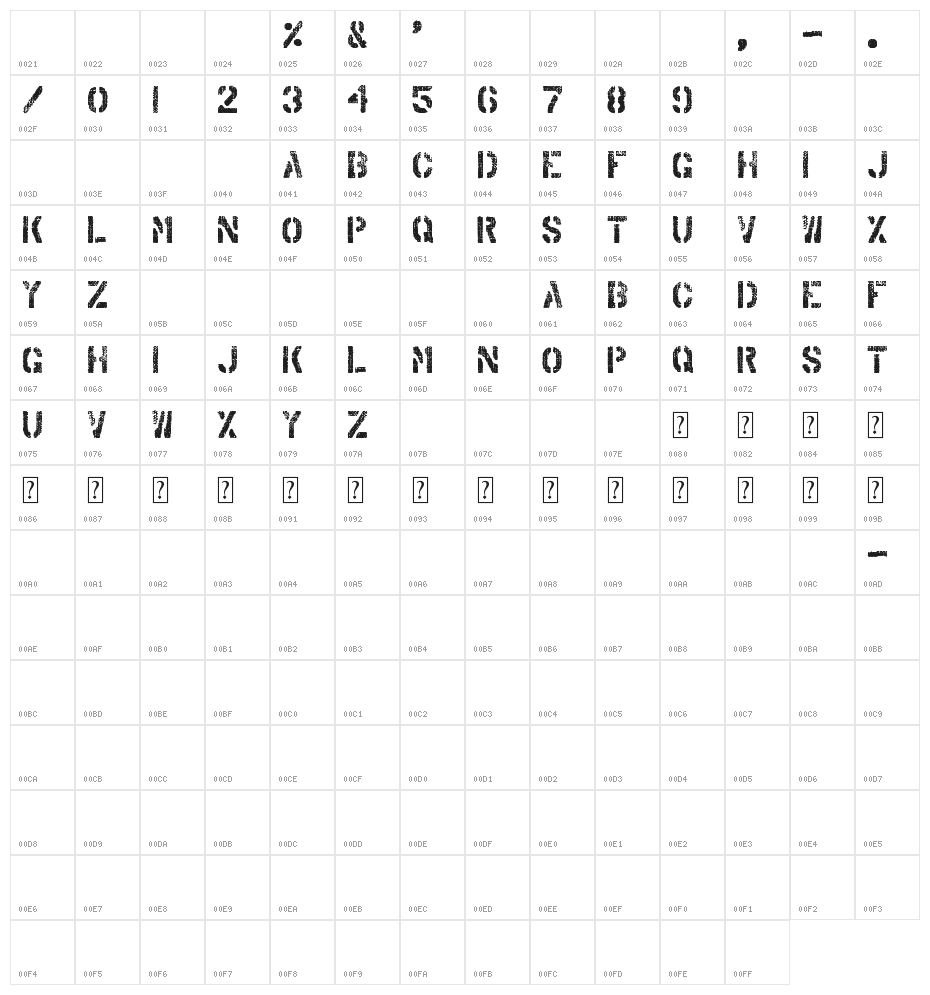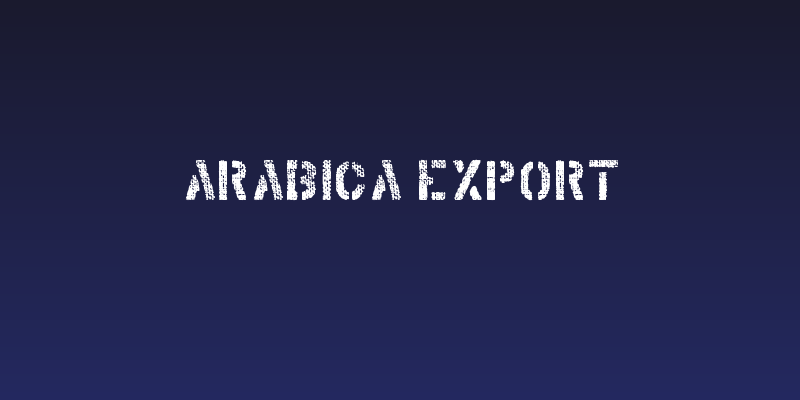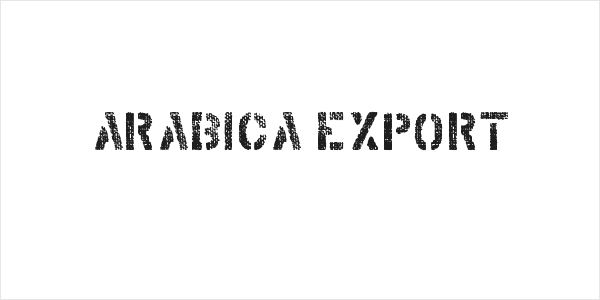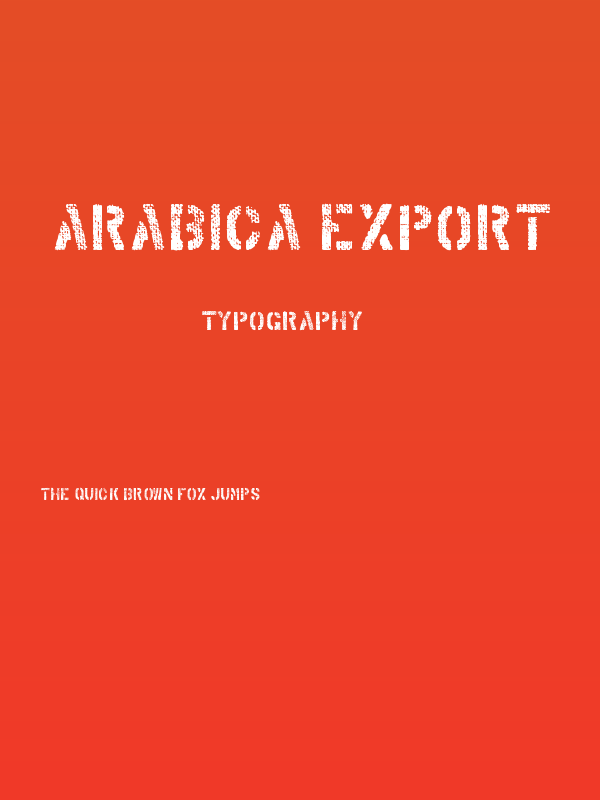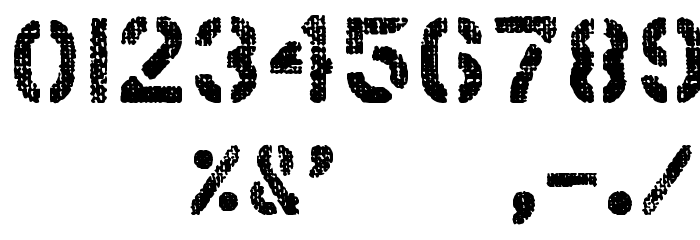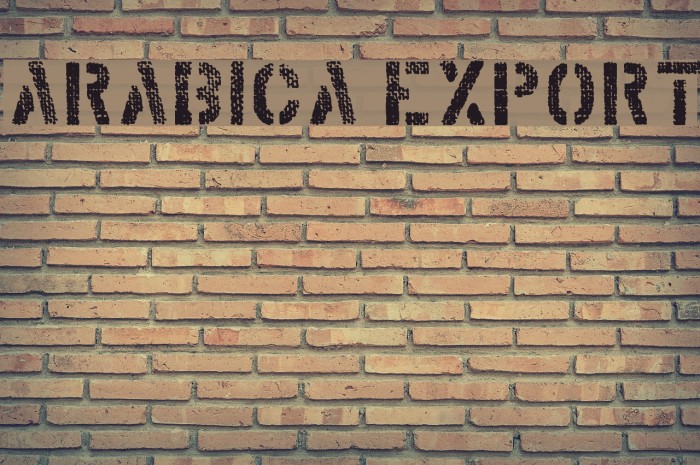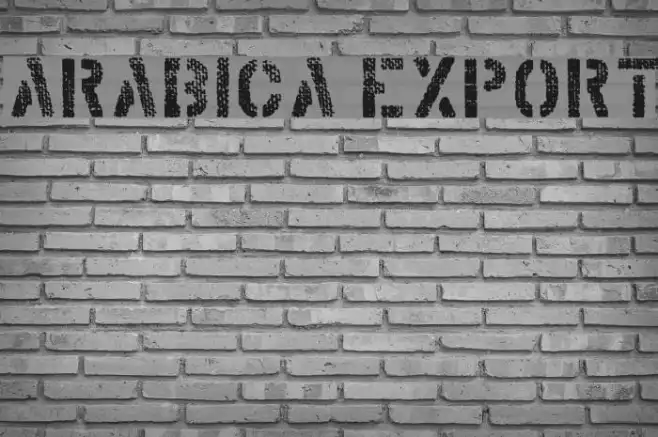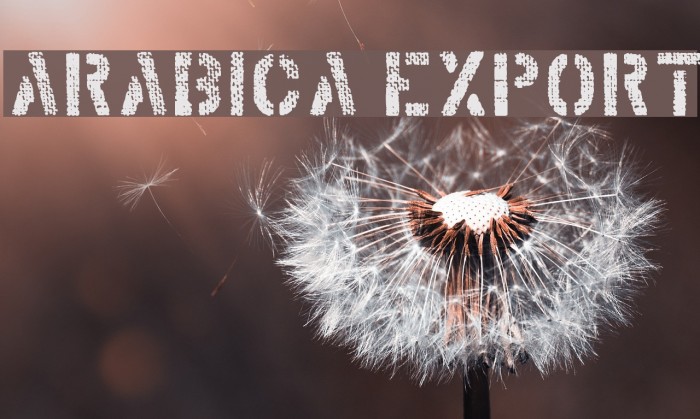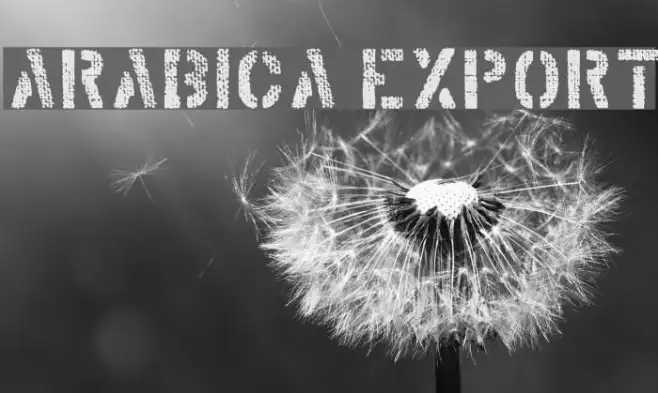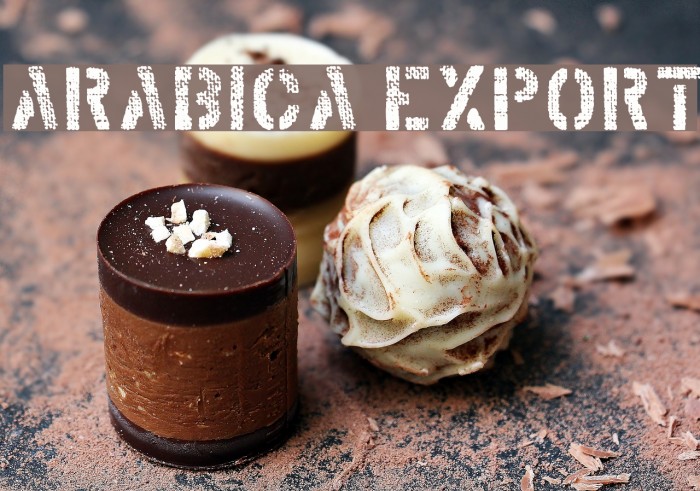
Arabica Export Font
Arabica Export Description
This font features a bold, distressed style with a textured appearance reminiscent of worn-out stencils or vintage signage. The characters are uppercase and numerals, each with a unique pattern of speckles and rough edges, giving it a rugged and industrial feel. The design is consistent across all characters, maintaining a cohesive look while adding visual interest through its irregular surface. This font is ideal for projects that require a strong, eye-catching aesthetic with a touch of nostalgia or urban grit.
| Overall Style | Vintage, Industrial |
| Proposed Projects | Perfect for branding, posters, album covers, and any design needing a bold, vintage look. |